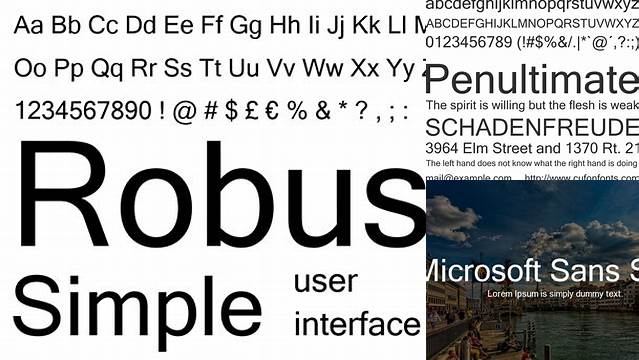
Free Microsoft Sans Serif Font: Download Guide
Microsoft Sans Serif Font Family: Your Free Download Guide
Hey there, font fanatics and design enthusiasts! Ever found yourself captivated by the clean, readable, and universally recognized Microsoft Sans Serif font? Well, you're in the right place! Today, we're diving deep into the Microsoft Sans Serif font family, exploring its history, characteristics, and, most importantly, how you can get your hands on a free download. So, buckle up, because we're about to embark on a typographic adventure!
What is Microsoft Sans Serif? Unveiling the Basics
First things first, let's get acquainted. Microsoft Sans Serif is a sans-serif typeface that has become synonymous with clarity and accessibility. Designed to be incredibly legible, it's a go-to choice for various applications, from web design to document creation. This font is a workhorse and designed for screen display, making it ideal for digital environments. You've likely encountered it countless times without even realizing it – from the menus on your favorite software to the body text of websites.
The font's design prioritizes simplicity and straightforwardness. Its clean lines, open counters, and balanced proportions make it easy on the eyes, even at small sizes. This is crucial for readability, particularly in digital settings where users are often bombarded with information. Microsoft Sans Serif, with its uncluttered aesthetics, ensures that the message is the focus, not the font itself. This is why the font family has been preinstalled on Windows. The font family comes with several variations to meet your demands, from the basic regular to bold and italic versions. This allows you to highlight sections, create headings, and tailor the font's appearance to your specific needs, all while maintaining a consistent and familiar aesthetic. The font’s versatility makes it a good choice for anything from presentations to documents. It is a dependable font that prioritizes readability and ease of use across various platforms and mediums.
Microsoft Sans Serif is not just a font; it's a statement. It’s a commitment to communication that is clear, accessible, and designed to work seamlessly across various devices. Its wide acceptance has led to it being a fundamental element of the digital landscape. Its history and enduring popularity are a testament to its effectiveness in conveying information. Whether you are a designer, a writer, or just someone who appreciates a well-crafted font, Microsoft Sans Serif is a font you should know and have in your library. Having it available for free download is a boon for anyone interested in visual communication. So, it's not just a font; it's a legacy of design that continues to shape the digital world we navigate every day.
Why Choose Microsoft Sans Serif? Its Benefits and Uses
Alright, let's talk about why Microsoft Sans Serif is such a hit. The main reason is its exceptional readability. In an era where we're constantly bombarded with digital content, a font that's easy on the eyes is gold. The design ensures that your audience can consume information without struggling. Beyond readability, the font’s versatility is another major perk. It is available on Windows. Whether you're crafting a professional document, designing a website, or preparing a presentation, this font family fits the bill. It’s adaptable enough to handle various tasks. The font's widespread use also means it is universally recognized. Using it ensures a sense of familiarity for your audience. This familiarity helps build trust and credibility. It's a font that speaks the language of the digital world. The free availability of Microsoft Sans Serif is a significant advantage. You can incorporate it into your projects. Its ease of access and the fact that it is pre-installed on Windows systems make it accessible to everyone. This is a huge bonus for creators of all levels. The font’s simplicity also makes it an excellent choice for minimalist design. It allows other design elements to stand out. It makes a strong statement while staying out of the way. The font’s subtle appearance makes it an ideal choice for a variety of applications. This makes it an ideal choice for anyone looking for a font that is both reliable and versatile.
Microsoft Sans Serif vs. Other Fonts: What's the Difference?
Okay, so you have Microsoft Sans Serif, but how does it stack up against other popular fonts? Let's see how this classic fares in the font world. Microsoft Sans Serif shines in terms of readability. It is designed with simplicity in mind. Other fonts, like Arial, share similar qualities. The design is clean and uncluttered, making it excellent for body text and digital displays. Some fonts have a more decorative appearance. These may be appropriate for headings or special occasions. However, they can also be less readable. Microsoft Sans Serif also scores high on accessibility. Its straightforward design ensures that it can be easily read by people. Its widespread availability and use are huge advantages. Other fonts, such as Helvetica, are also popular choices. However, Microsoft Sans Serif’s simplicity can make it a better option for certain projects. The font is good for various tasks, from documents to websites. It’s suitable for a wide range of audiences. The design contributes to an efficient and enjoyable reading experience. This can have a positive impact on your overall design and communication. Choosing the right font is essential for conveying your message effectively. Microsoft Sans Serif gives the right balance between style and practicality. Its timelessness is a testament to its impact. In comparison, other fonts may have niche uses. But the balance of Microsoft Sans Serif has made it a go-to for various purposes. Its enduring popularity makes it an excellent choice for a variety of users.
Tips for Using Microsoft Sans Serif Effectively
Now that you have the font, how do you make the most of it? First, focus on readability. Use it for body text, where its clean lines and open counters can do their best work. Pair it with other fonts thoughtfully. You could combine it with a serif font for headings or titles. Use it consistently. Decide where you will use it. Then stick to it throughout your projects. Use it for headings, body text, or both. Adjust the size and weight to suit your needs. Bold and italic can be a great way to emphasize specific words or phrases. Consider the context. Make sure it matches your message. Keep it simple and accessible. Don't overdo it. Experiment with different layouts. This way you can find the perfect balance between design and readability. Always proofread. Make sure the text is easy to understand and flows well. Use it across multiple platforms. The font is great on digital and print. If your design is web-based, ensure that the font renders correctly on different devices. Remember, the goal is to communicate clearly and effectively. The font is a good tool for that. By keeping these tips in mind, you can make your design work with clarity and style. Its versatility and reliability make it a staple in any designer’s toolbox. From documents to websites, its understated elegance makes it a versatile choice. The key is to use it strategically. It’s good for your audience and enhances the impact of your message.
Conclusion: Your Gateway to Clear Communication
So there you have it, folks! A comprehensive guide to the Microsoft Sans Serif font family and how you can get it for free. Remember, this font is more than just a collection of characters; it's a tool for clear communication. With its exceptional readability, versatility, and accessibility, it's a perfect choice for all your design needs. By following the tips and tricks, you can confidently use this timeless font to create a visual message that resonates with your audience. So go forth, download, and start creating! Happy designing!